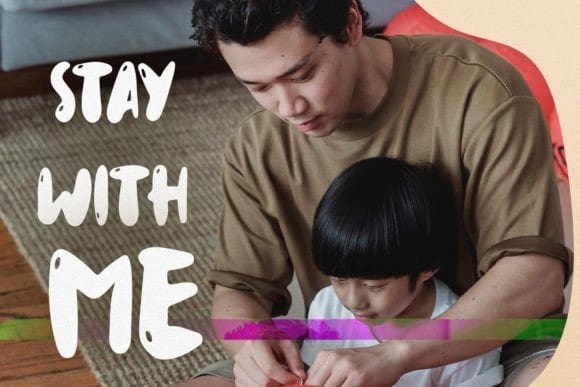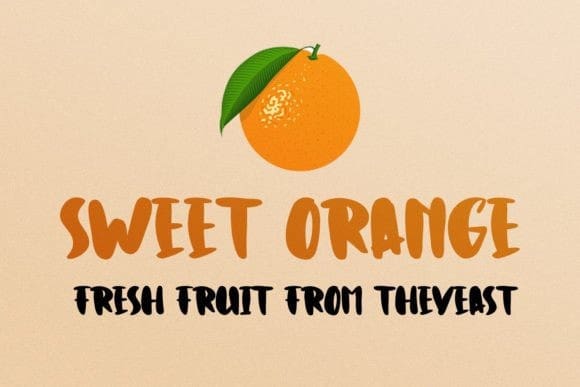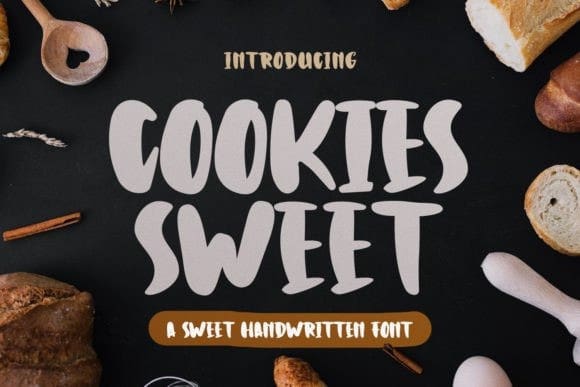
Cookies Sweet Font
Cookies Sweet Font is s bold handwritten font complemented by some of the same alternatives made with love. Perfect for editorial projects, Logo design, Clothing Branding, product packaging, magazine headers, or simply as a stylish text overlay to any background image.